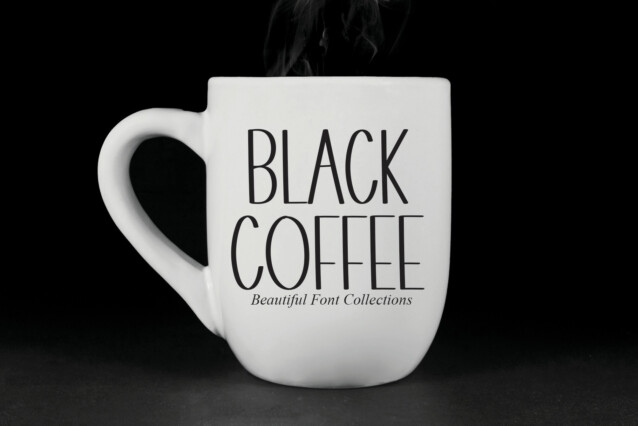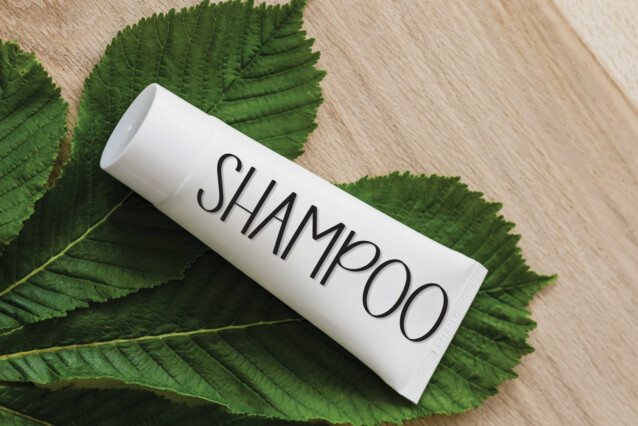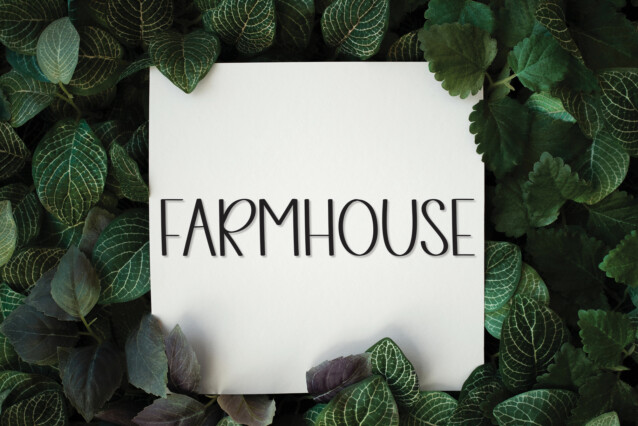
Social House Display Font
Social House Display Font is a simple and tall handwritten font. Its latest style letters are perfect for wall displays, wedding invitations, social media post logos, advertisements, product packaging, product designs, labels, photography, watermarks, invitations, stationery, and any project that requires a taste for handwriting.